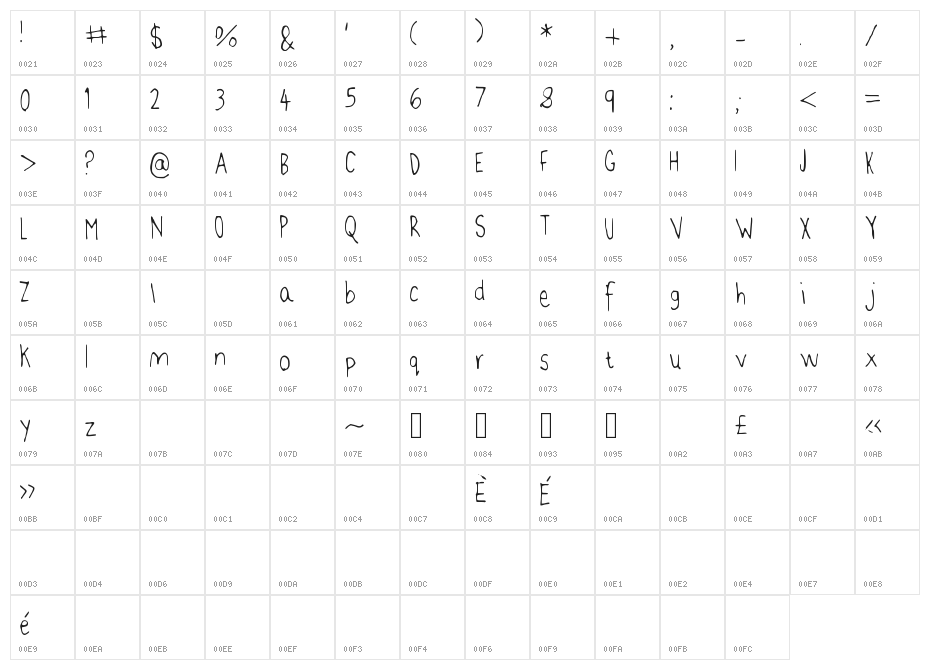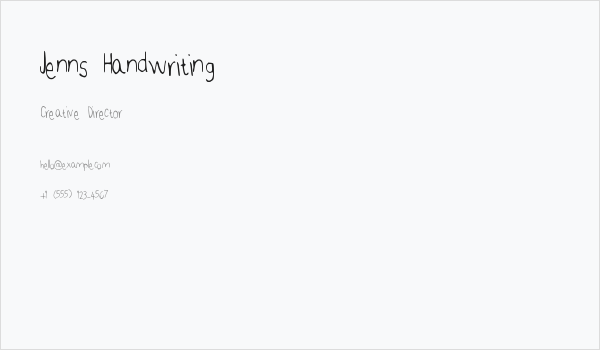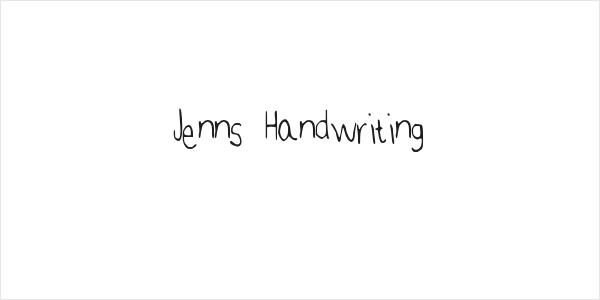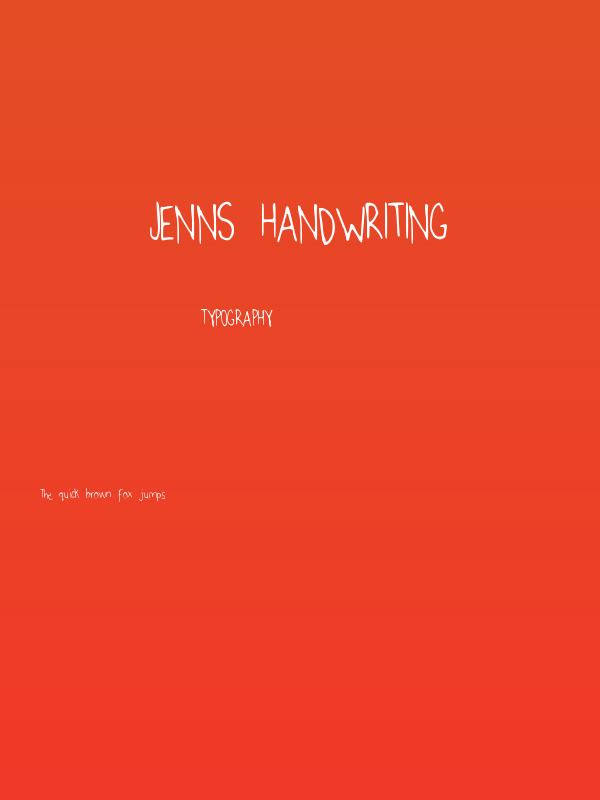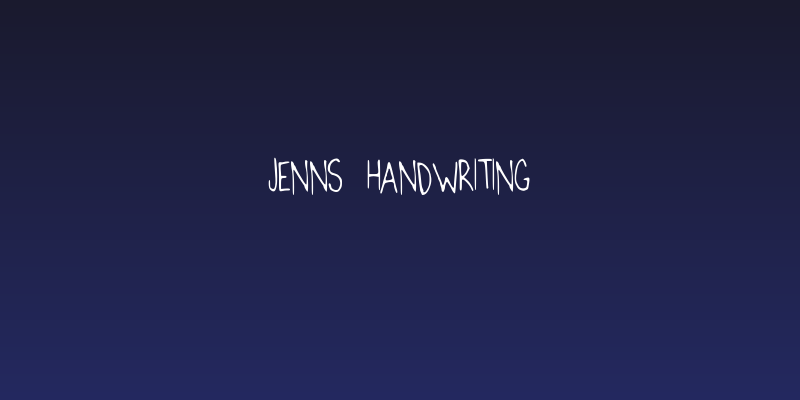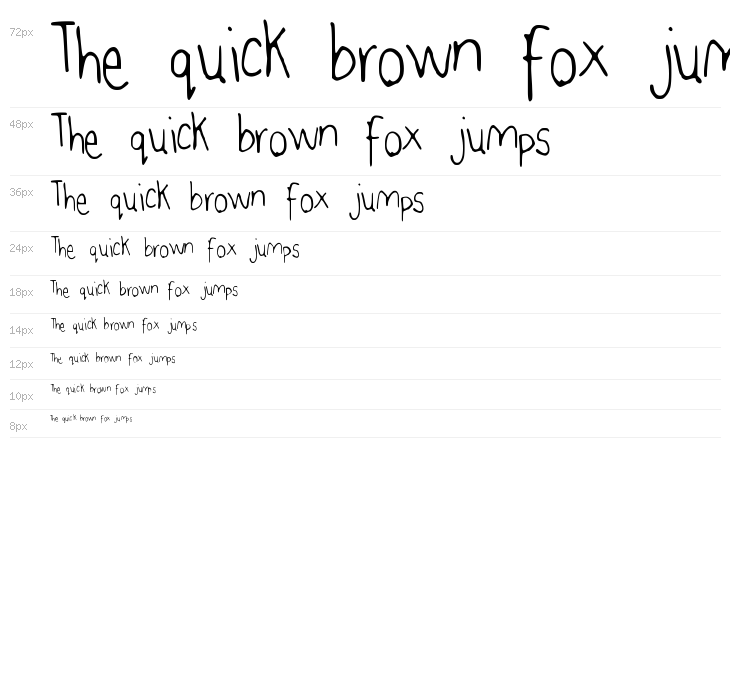
Jenns Handwriting Font
Jenns Handwriting Description
This font exudes a casual and personal touch, reminiscent of authentic handwriting. Each character is uniquely crafted with slight variations, giving it a warm and approachable feel. The strokes are consistent in width, maintaining a uniform appearance across both uppercase and lowercase letters. The numbers and special characters follow the same handwritten style, ensuring cohesion throughout. This font is perfect for projects that require a personal or informal tone, such as invitations, greeting cards, or personal blogs. Its playful yet legible design makes it suitable for a variety of creative applications.
| Overall Style | Casual, Personal |
| Proposed Projects | Ideal for invitations, greeting cards, personal blogs, and creative projects requiring a personal touch. |